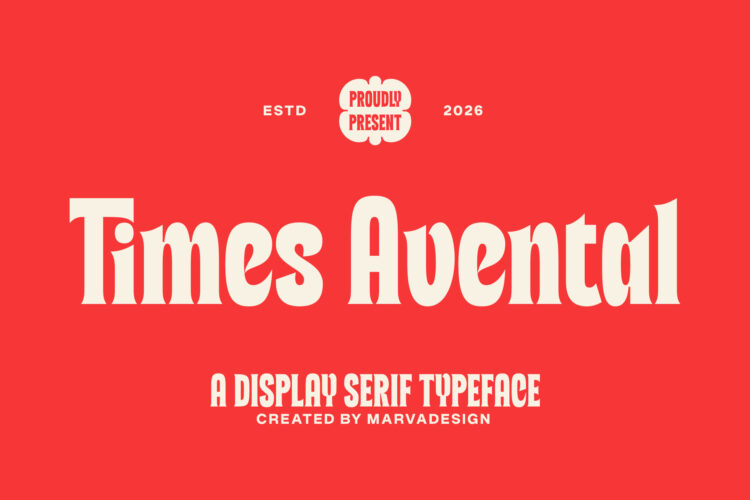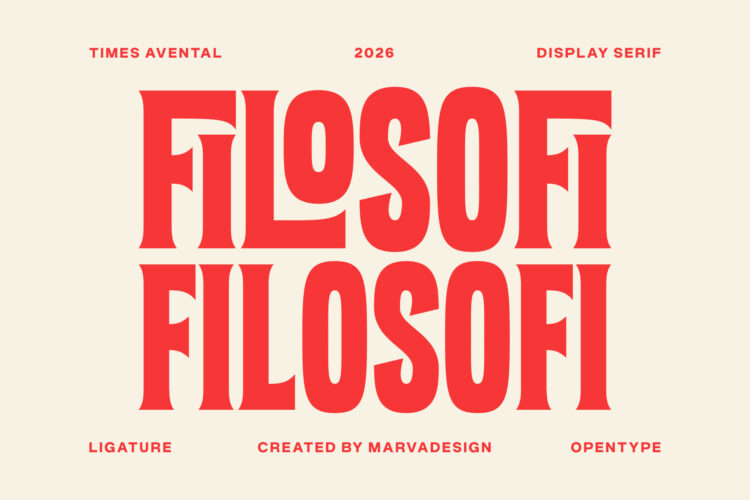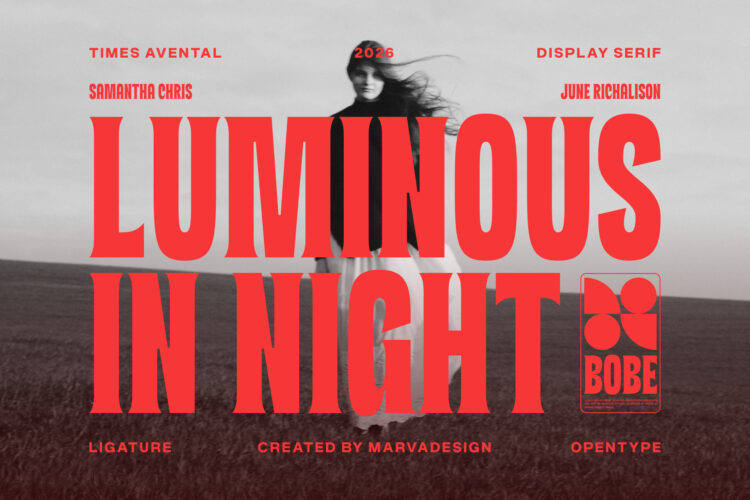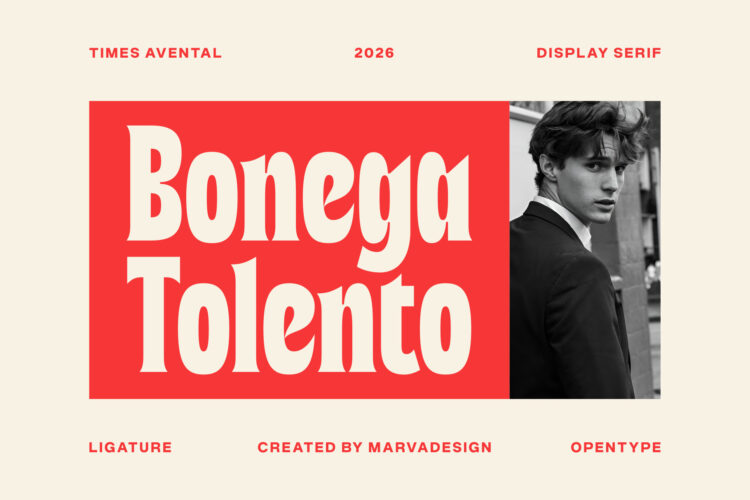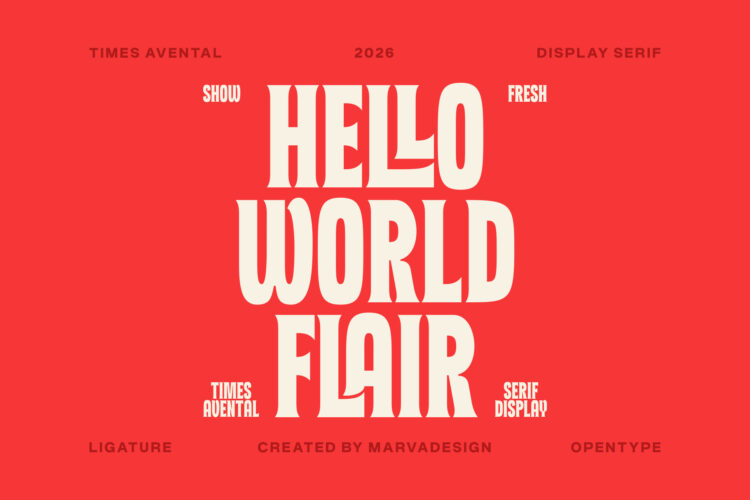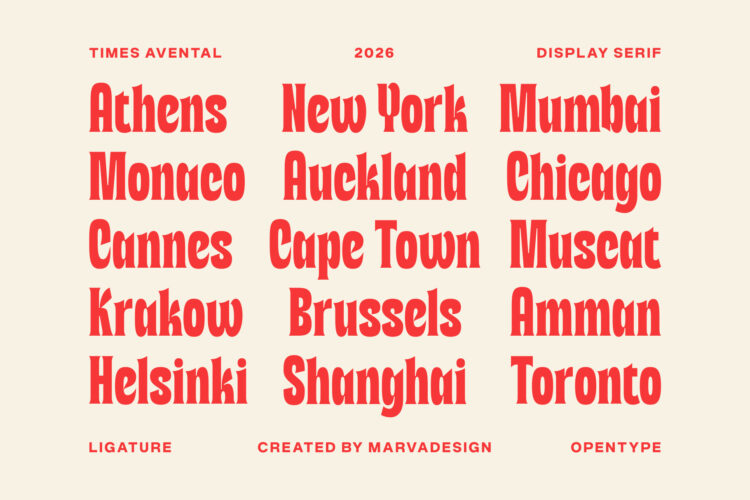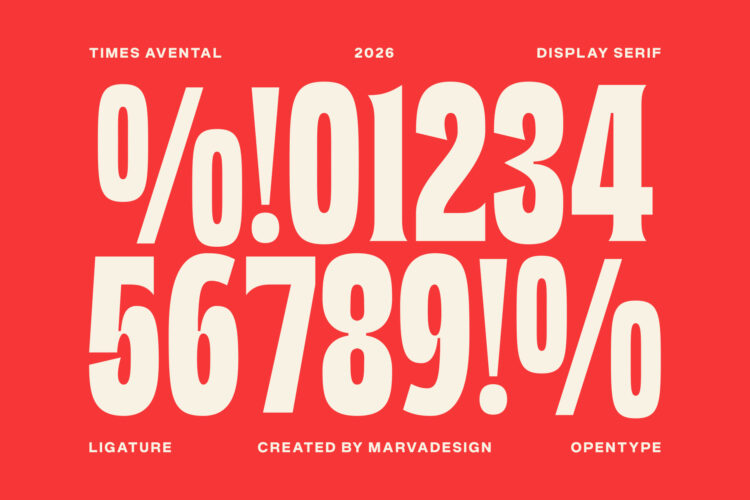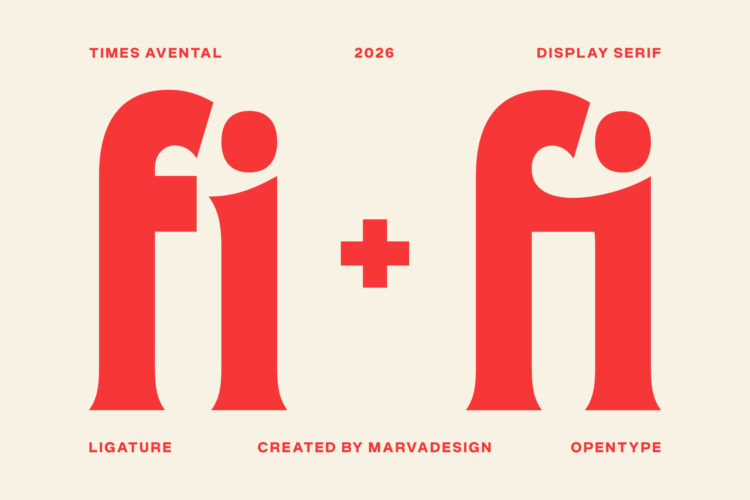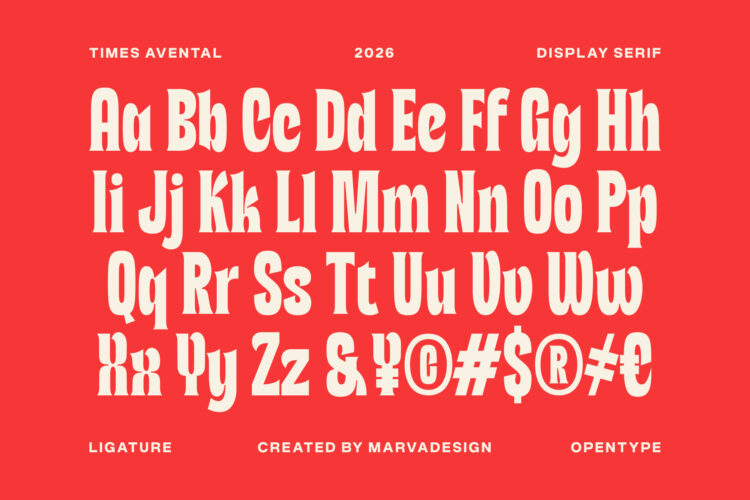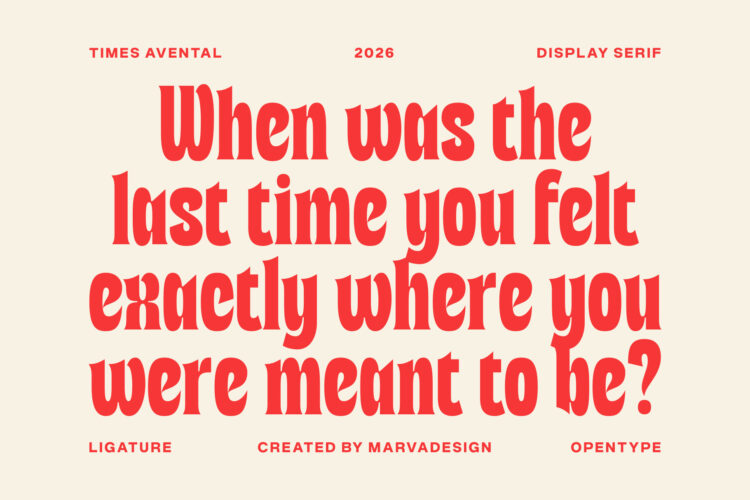
Display Serif Typeface
Times Avental
Times Avental is a bold and expressive display serif typeface that combines classic editorial elegance with a dramatic and contemporary personality. Its tall, condensed proportions, strong contrast between thick and thin strokes, and distinctive sculpted serifs create a powerful visual presence, while its curved terminals, sharp cuts, and unconventional letter structures give each character a unique and recognizable identity. The typeface balances sophistication with an experimental edge, making it highly suitable for fashion editorials, posters, branding, packaging, magazines, album artwork, and other attention-grabbing visual compositions. Its expressive ligatures further enhance its character by creating unexpected connections between letters, allowing typography to become an integral part of the design rather than simply supporting the message.